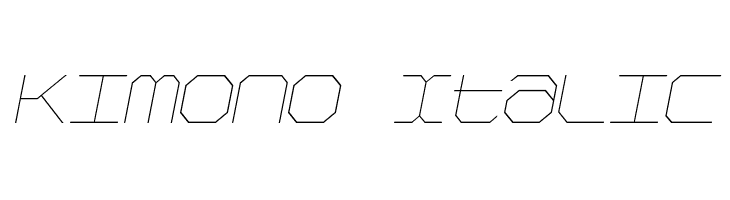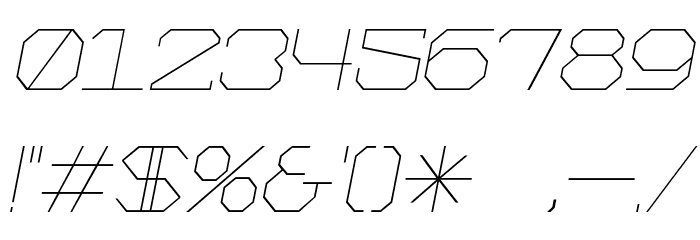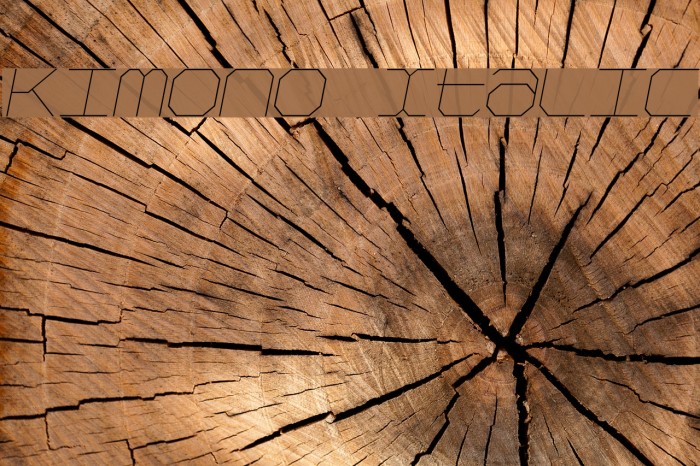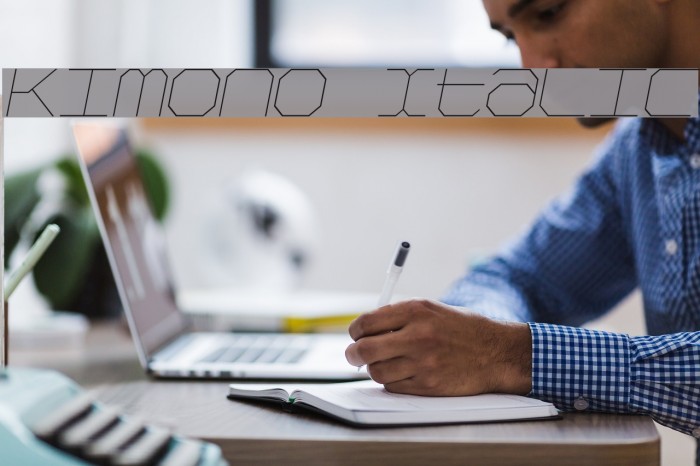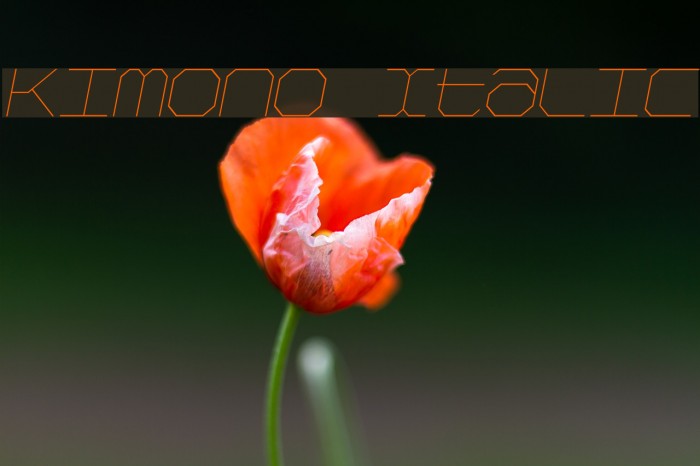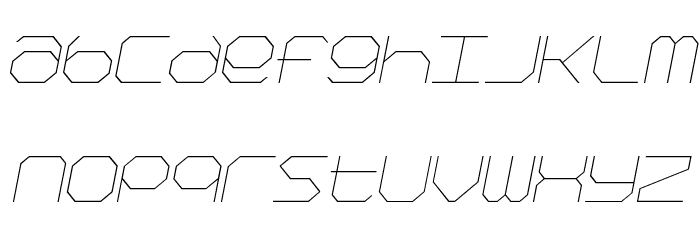
Kimono Italic Font
Kimono Italic Description
This font features a geometric and angular design, characterized by its sharp edges and linear forms. Each character is constructed with a series of straight lines, giving it a futuristic and technical appearance. The font maintains a consistent stroke width throughout, contributing to its modern and minimalist aesthetic. The uppercase and lowercase letters share a similar structure, enhancing the uniformity of the typeface. Numbers and special characters are designed with the same angular precision, ensuring a cohesive look across all glyphs. This font's unique style makes it stand out, suitable for projects that require a distinctive and contemporary touch.
| Use Case | Logos, Headlines, Digital interfaces |
| Proposed Projects | Ideal for tech-related branding, futuristic posters, digital interfaces, and modern art projects. |